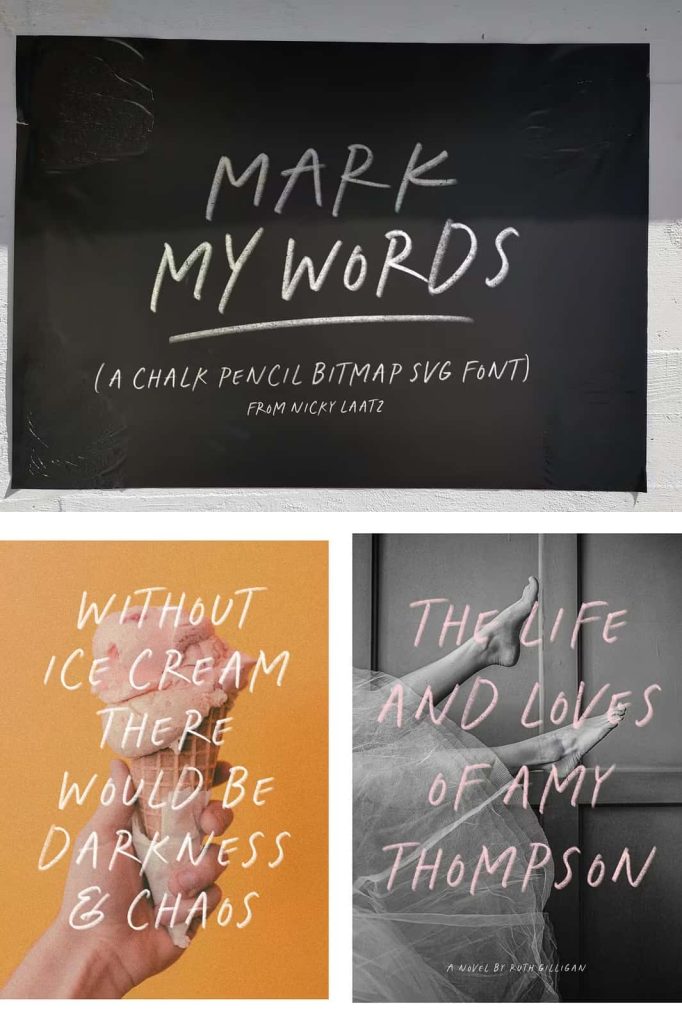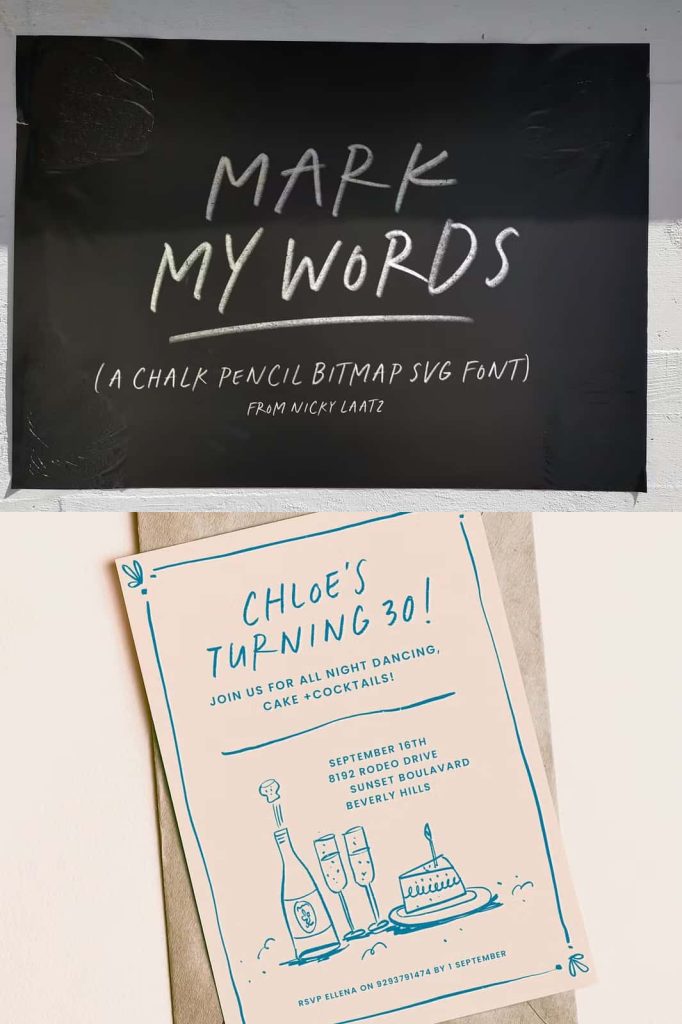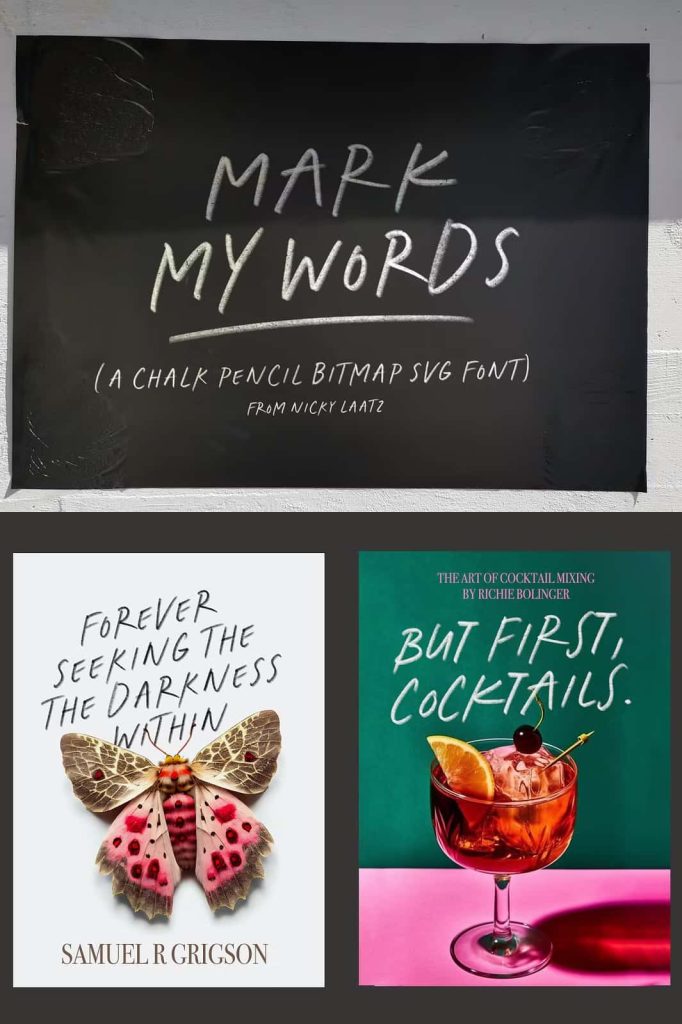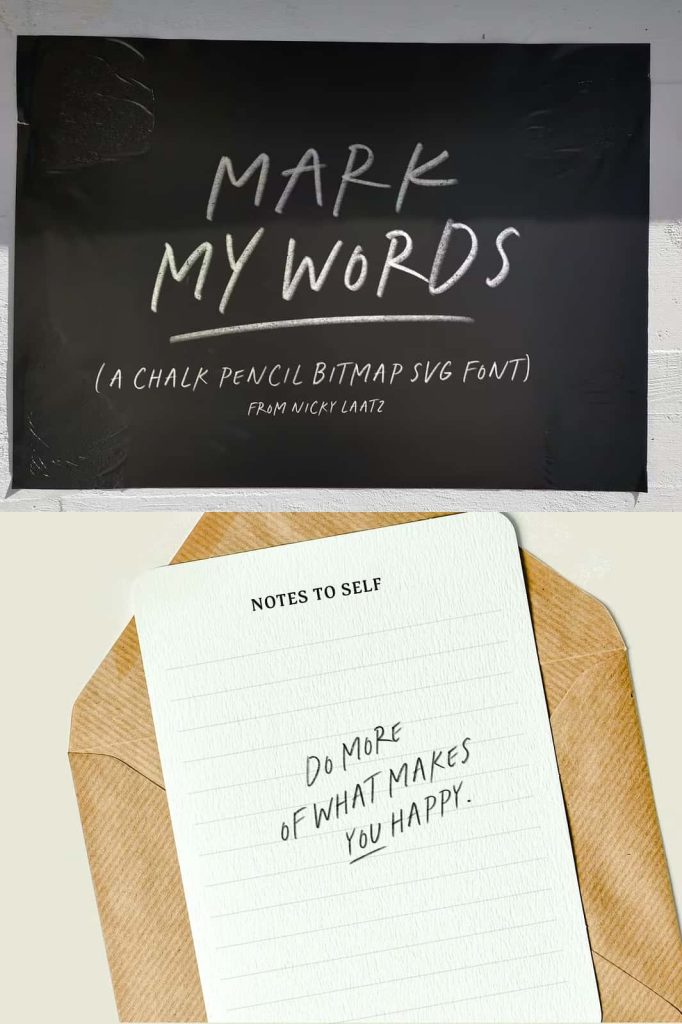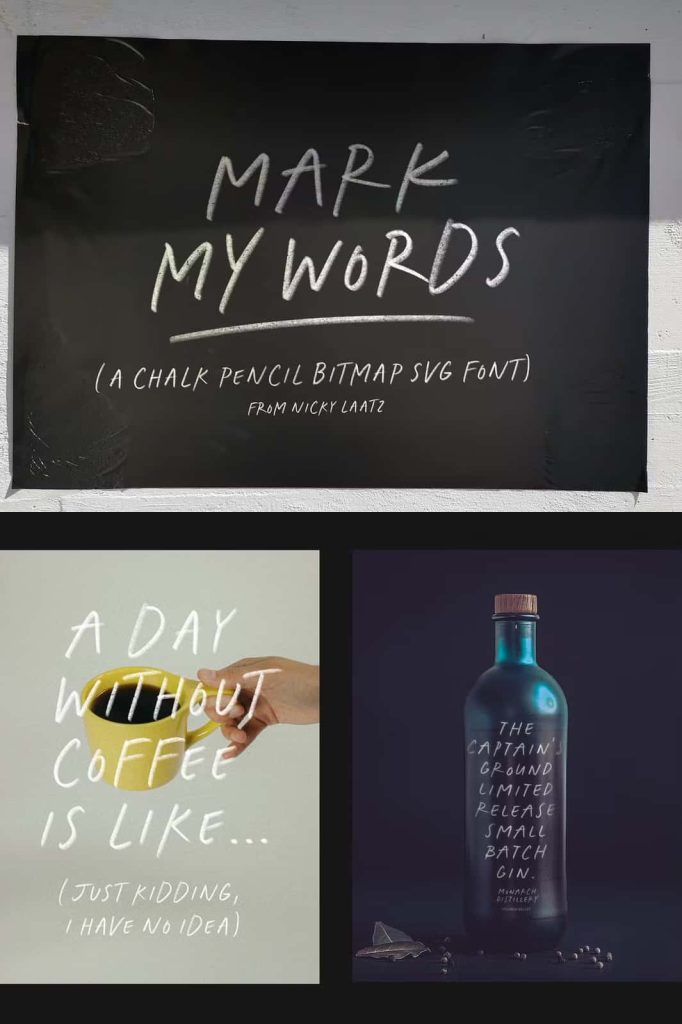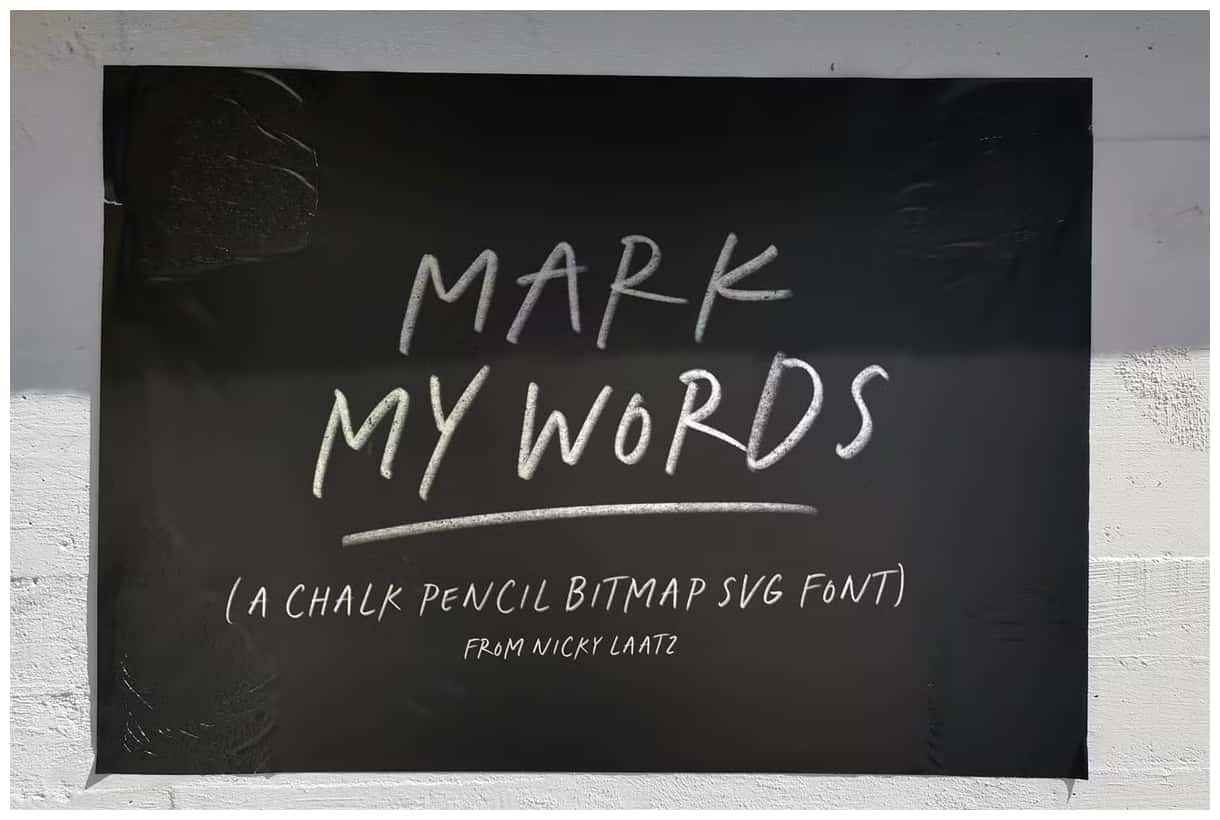
Mark My Words Bitmap SVG Font
Say hello to ‘Mark My Words’! A versatile, casual all-caps Pencil Bitmap SVG font 🙂 Playful but with a touch of serious.